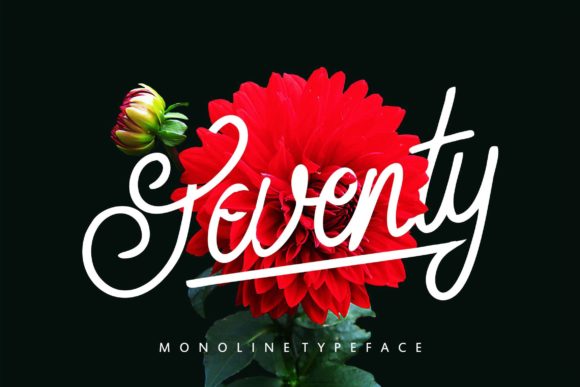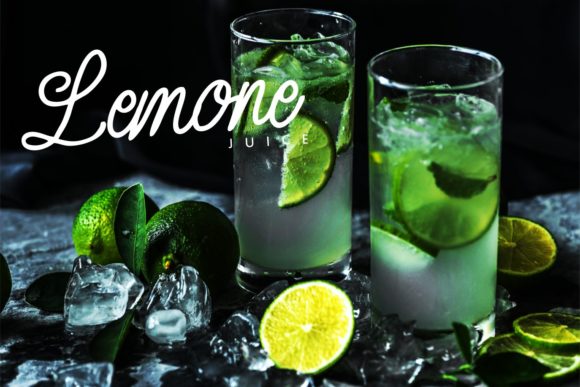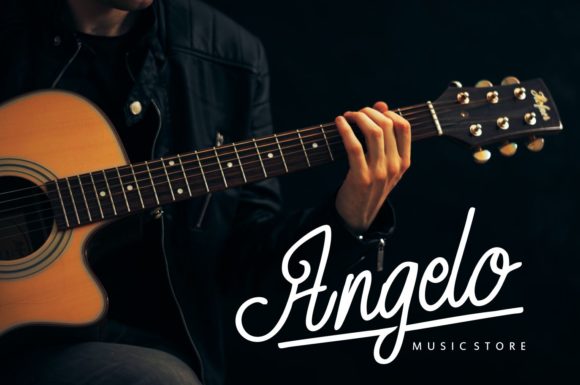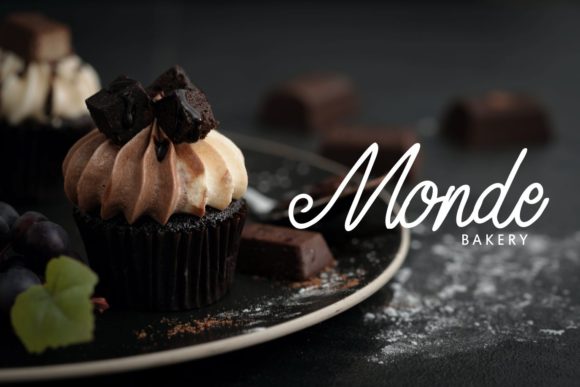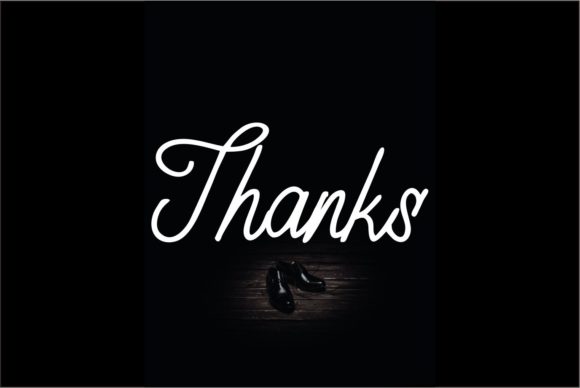
HomeScript FontsSeventy Font Script Fonts Seventy Font FacebookXPinterestWhatsApp Seventy Font Poster 2 Seventy Font Poster 3 Seventy Font Poster 4 Seventy Font Poster 5 About Seventy Font Seventy is a stunning monoline script font with a twisted charm. It will add a bold flavour to any design project. DOWNLOAD ON CREATIVE FABRICAThis font is sold and delivered by Creative Fabrica. Font Canyon may earn a commission if you buy through this link. People also explored Verlin Font Happy Full Moon Font Black Majestic Font Alabama Font Beachy Dreams Cursive Handwriting Valentine Heart Font Collection Font Sweet Halloween Duo Font Black Forest Modern Handwritten Font 329 0 TagsSeventy Font Previous articleCempalakuneng FontNext articleEmerland Font LEAVE A REPLY Cancel reply Comment: Please enter your comment! Name:* Please enter your name here Email:* You have entered an incorrect email address! Please enter your email address here Website: Save my name, email, and website in this browser for the next time I comment. Personal Use Free 1313 Mockingbird Lane Personal Use Free Read more about this font Masha Song Personal Use Free Read more about this font Choco Shake Font Personal Use Free Read more about this font Nikoleta Personal Use Free Read more about this font BLOG Using Fonts in Digital Marketing: Tips to Strengthen Your Brand Identity In the realm of digital marketing, every visual element plays a crucial role in shaping a brand's identity, and fonts are no exception. The... Elegant Wedding Invitation Fonts – Handwritten & Script Fonts 5 Fonts That Will Dominate Design Trends in 2026 How to Cut Any Font on Cricut: Convert a Font to SVG (Free)